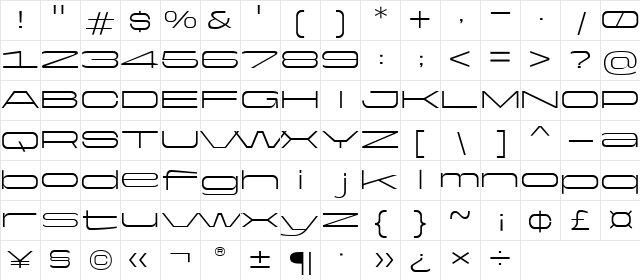
Yapari Light Extd Regular Free Font
Yapari Light Extd Regular
Foundry: Power Type￿ Foundry
Designer: Teguh Arief
Complete Yapari Light Extd Regular glyph index. Displaying only characters natively supported by Yapari Light Extd Regular font.
Design Context for Yapari Light Extd
Yapari Light Extd is a composed and adaptable typeface that performs quietly and consistently across a wide range of design contexts. Its slender proportions lend an understated elegance to any composition.
Who designed the Yapari Light Extd Regular font?
This font was published by Power Type Foundry. Check the technical specs section for copyright and designer details.